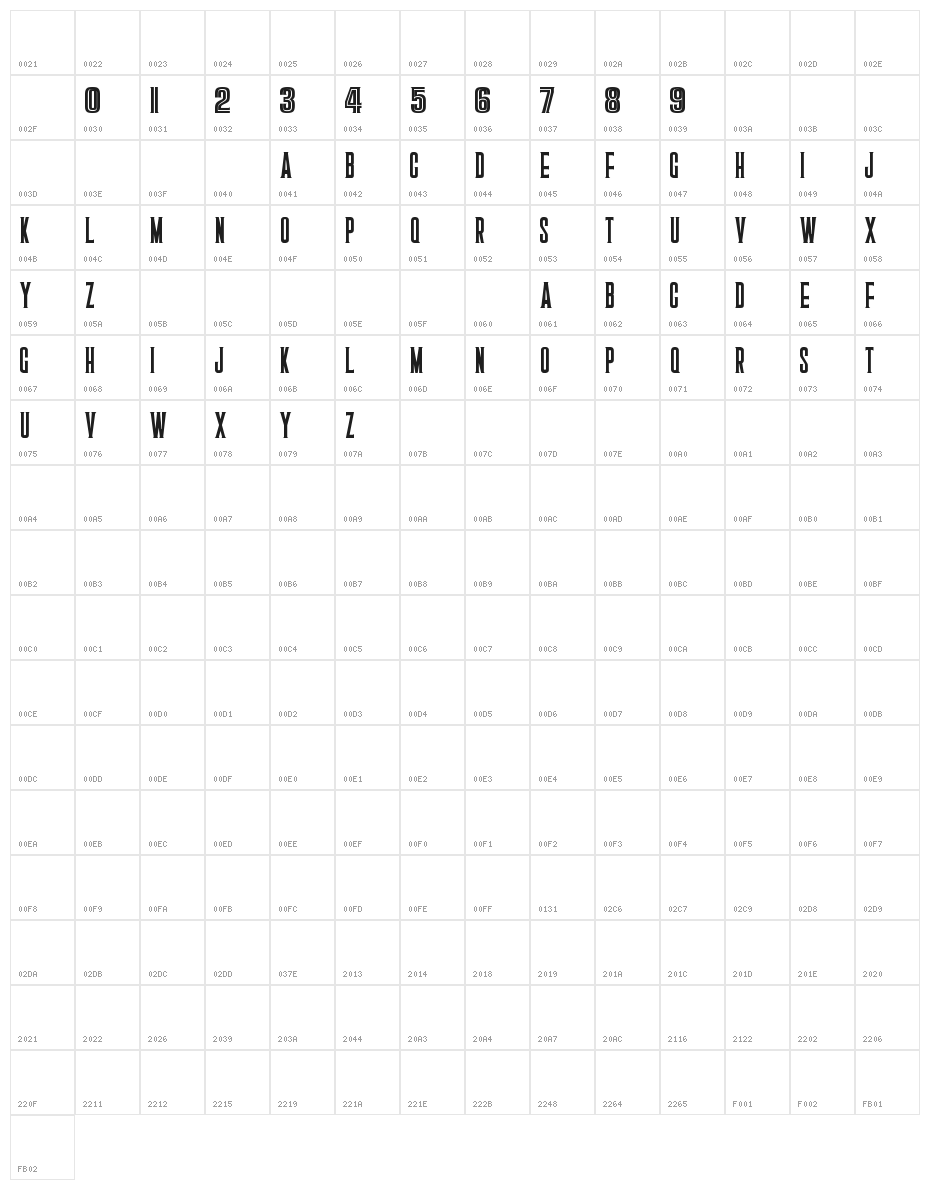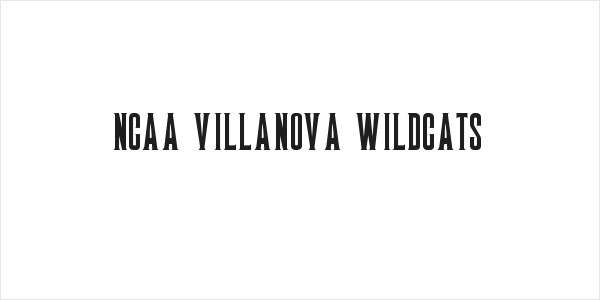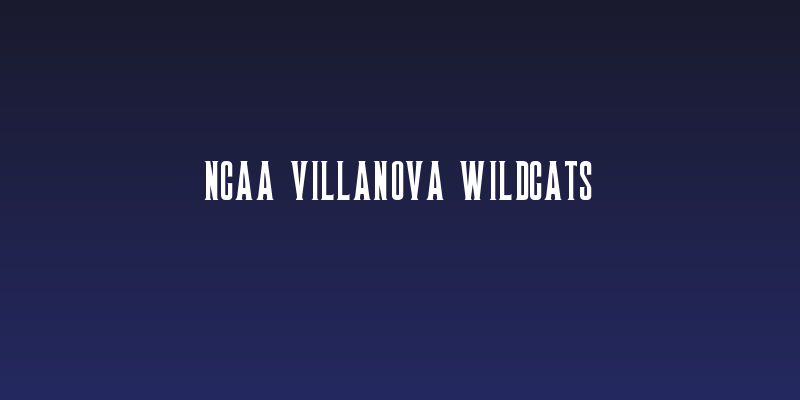
NCAA Villanova Wildcats Font
NCAA Villanova Wildcats Description
This font features bold, elongated characters with a strong presence, ideal for making a statement. The uppercase letters are tall and narrow, giving a sense of authority and strength. The numbers are equally bold, with a consistent width that complements the letters. The overall design is reminiscent of collegiate or sports team branding, making it suitable for projects that require a bold and impactful look. The font's style is both classic and modern, with a touch of vintage flair, making it versatile for various design needs.